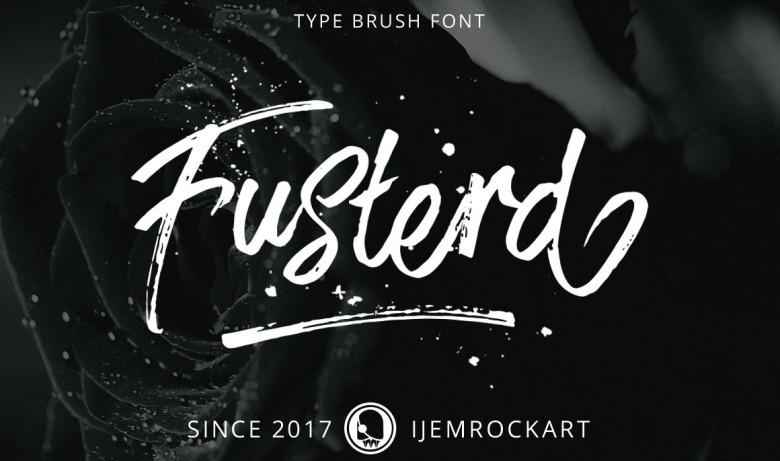
Fusterd Brush Font
Hi there! Let me introduce Fusterd – a brush typeface. Fusterd Font was designed by Ijemrockart and shared by Pathero Studio. Free Fusterd Brush Typeface is a stylish contemporary brush font you’ve been looking for, with unique flow. Fusterd script is a hand brushed font created with a brush and ink, bold and irregular baseline. This font ideal for use in watercolor design or lettering style bold hand, such as blog header, posters, wedding elements, t-shirt, apparel, cover books, business cards, greeting cards, branding, merchandise, invitations and handmade quotes and more.